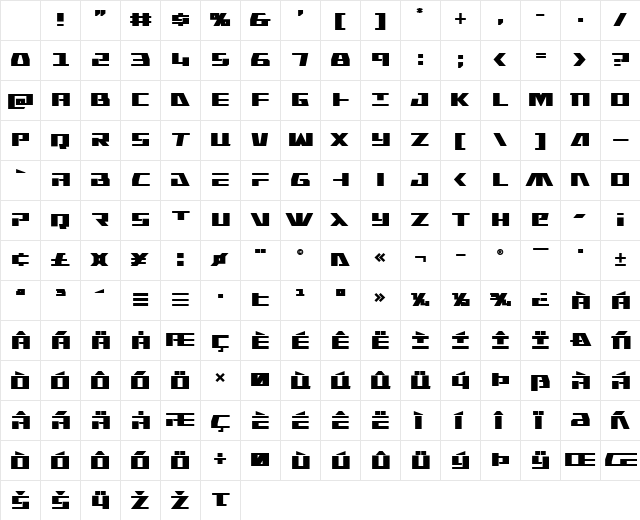
Complete Yamato Class Bold Regular glyph index. Displaying only characters natively supported by Yamato Class Bold Regular font.
Yamato Class Bold is a composed and adaptable typeface that performs quietly and consistently across a wide range of design contexts. Its bold stroke weight gives it real presence on the page.